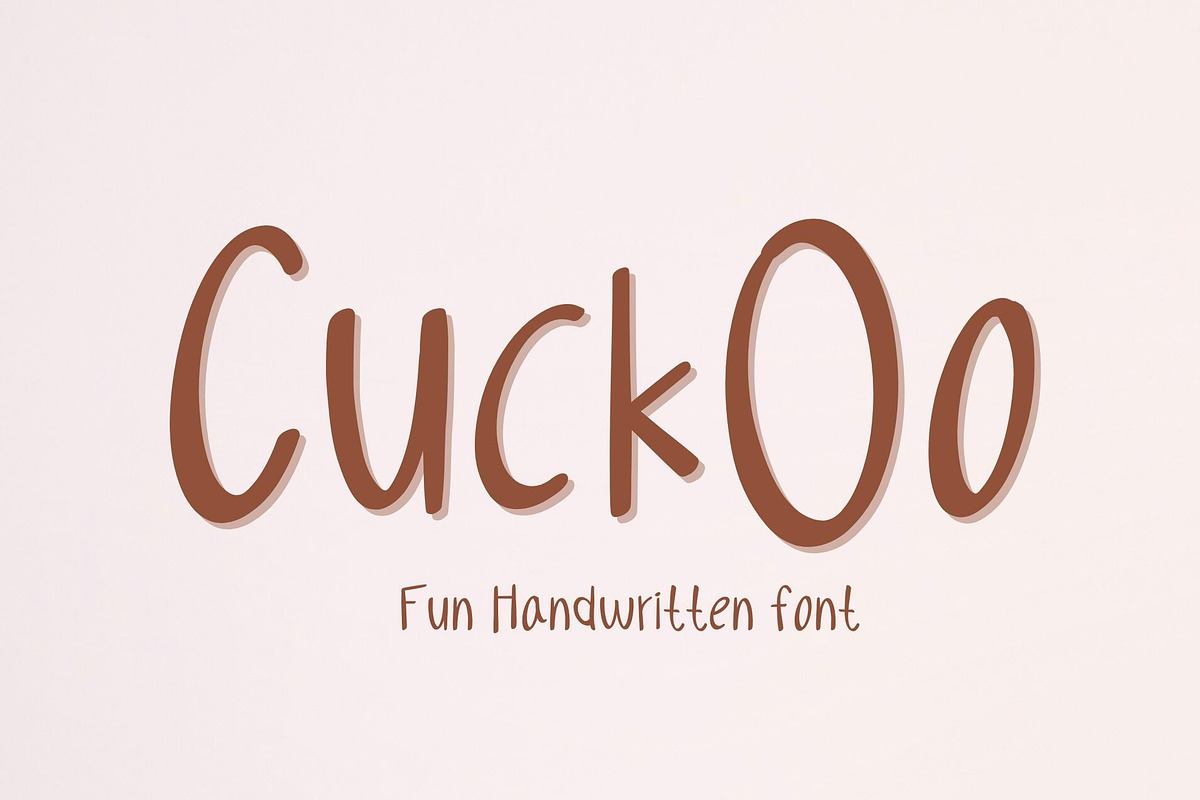
Cuckoo - Handwritten font Free Download
Cuckoo - Handwritten Font Free Download
You must purchase this font for commercial use. However, you can download Cuckoo - Handwritten Font Free Download for testing purposes. Cuckoo is a charming and playful handwritten font that adds a personal and casual touch to your designs. With its flowing strokes and unique letterforms, it’s perfect for creating logos, invitations, greeting cards, branding, and social media graphics that require a friendly, authentic vibe.
The quirky, hand-lettered style of Cuckoo brings a whimsical and creative feel to your typography, making it ideal for projects that need a fun, lighthearted aesthetic. Whether you're designing for a boutique, crafting a heartfelt invitation, or working on a personal project, this font will bring a warm and inviting feel to your designs.